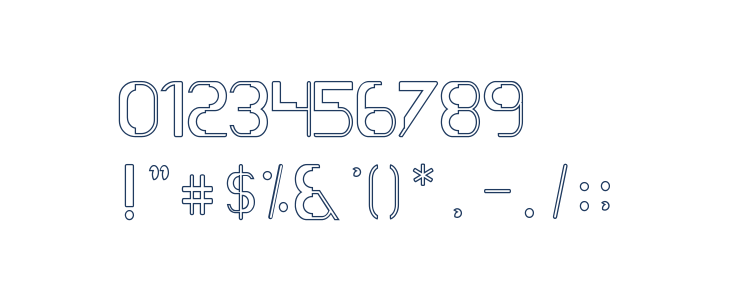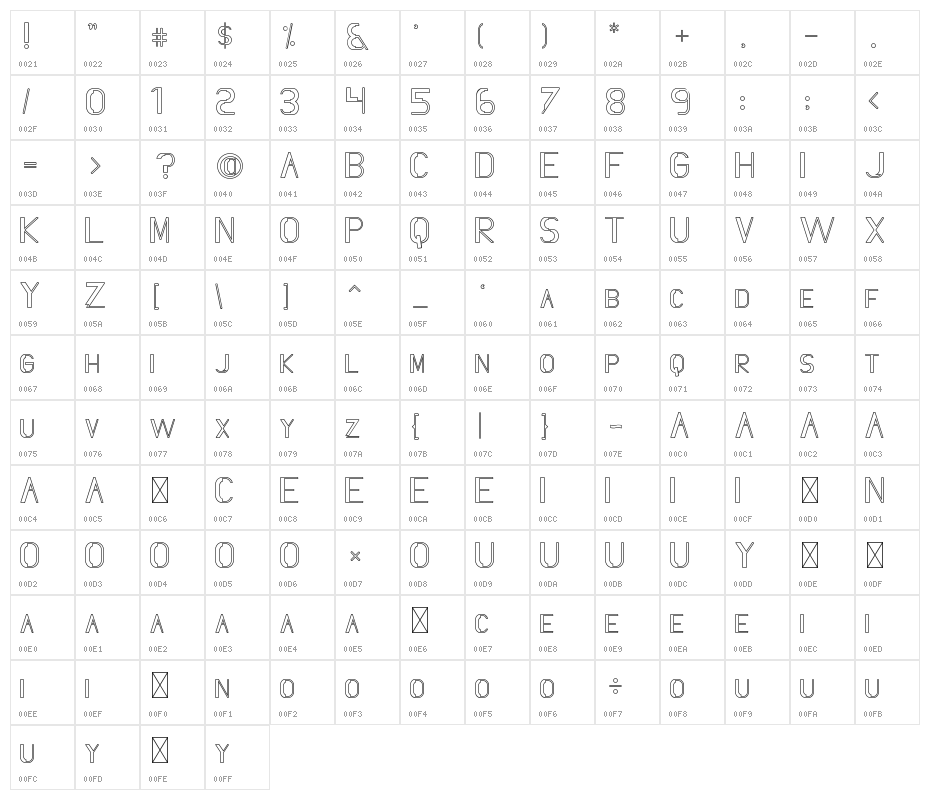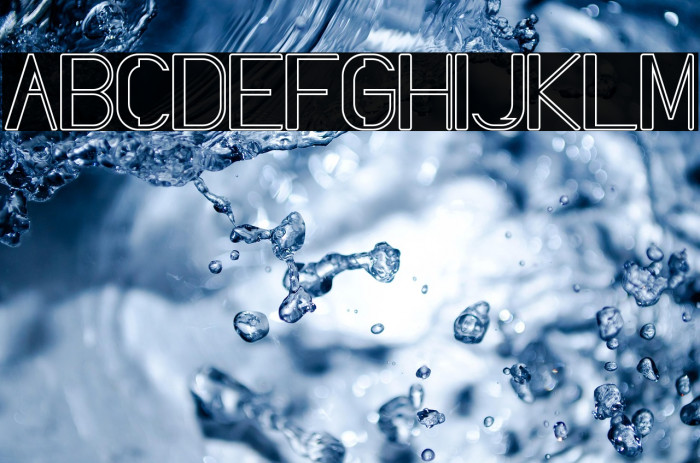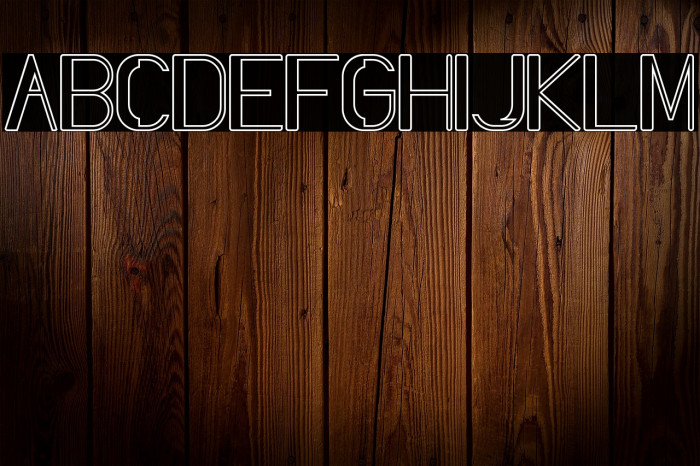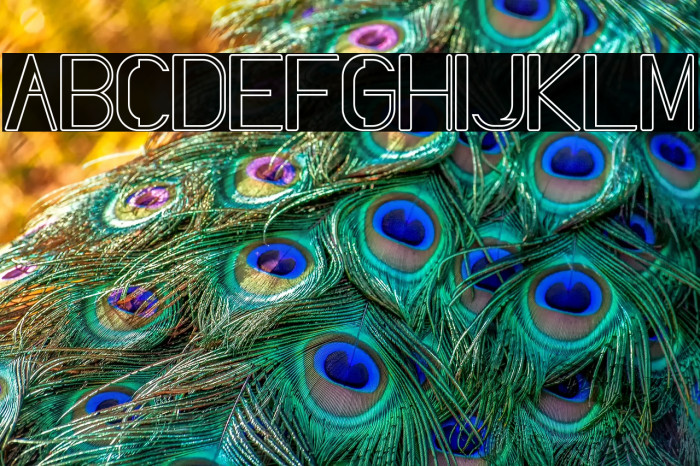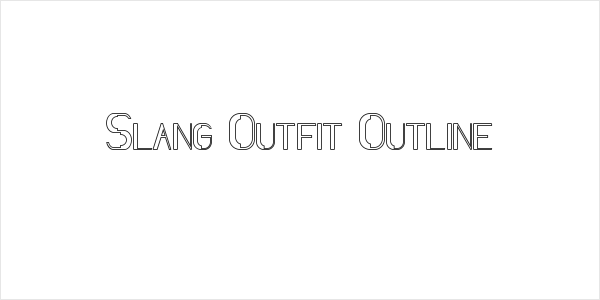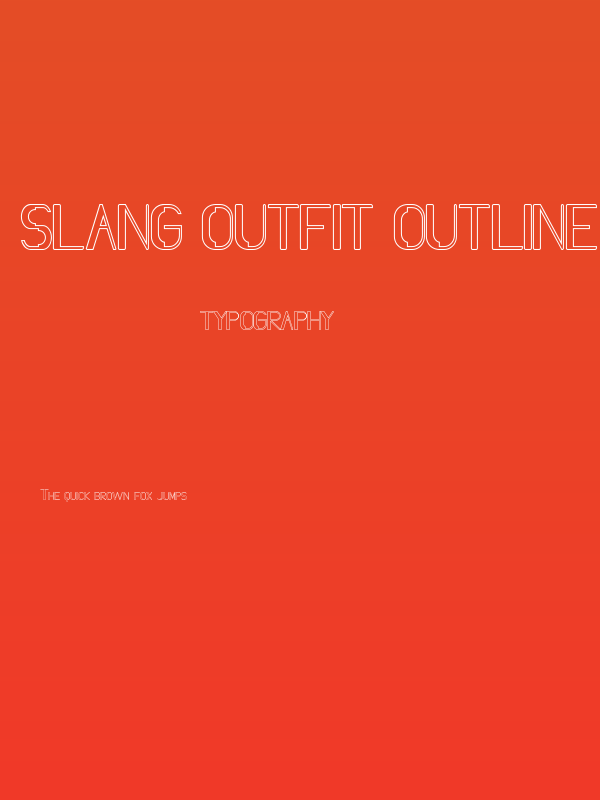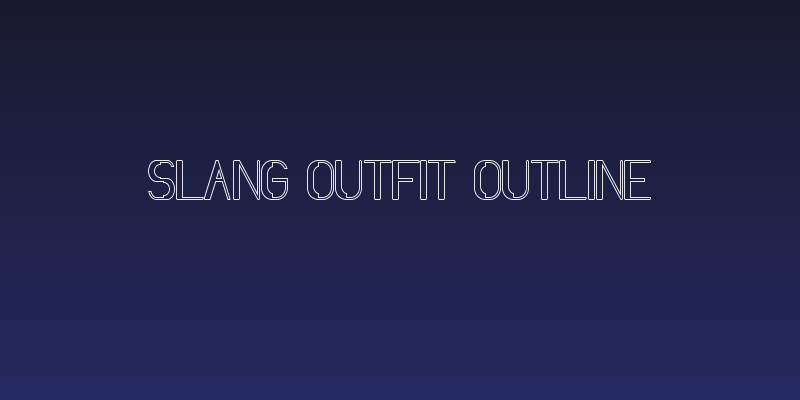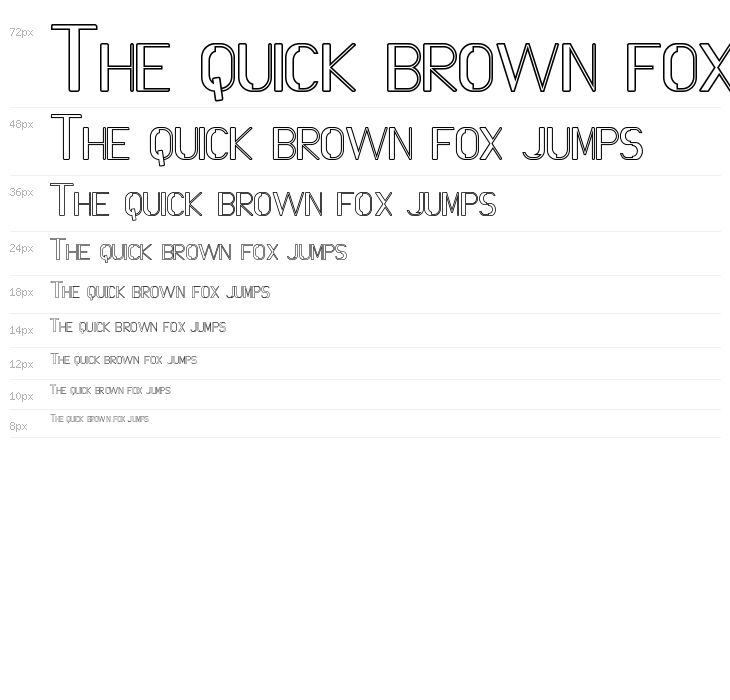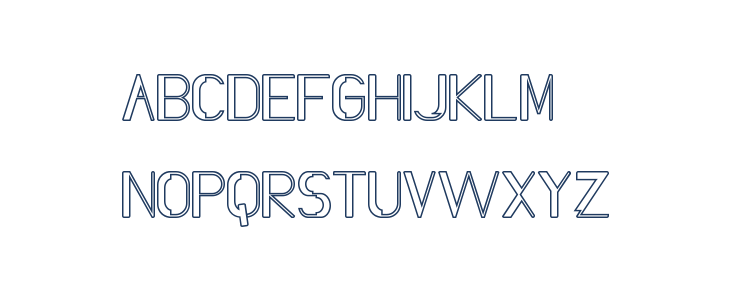
Slang Outfit Outline Font
Slang Outfit Outline Description
This font features a modern, outlined style with a geometric and structured appearance. Each character is defined by a single continuous line that forms the outer boundary, creating a hollow effect. The uppercase and lowercase letters maintain a consistent height and width, giving the font a uniform look. The numerals and special characters follow the same outlined design, ensuring cohesion across all elements. The font's clean lines and open spaces make it highly legible, even at smaller sizes. Its unique outline style adds a contemporary and edgy feel, suitable for projects that require a bold and distinctive visual impact.